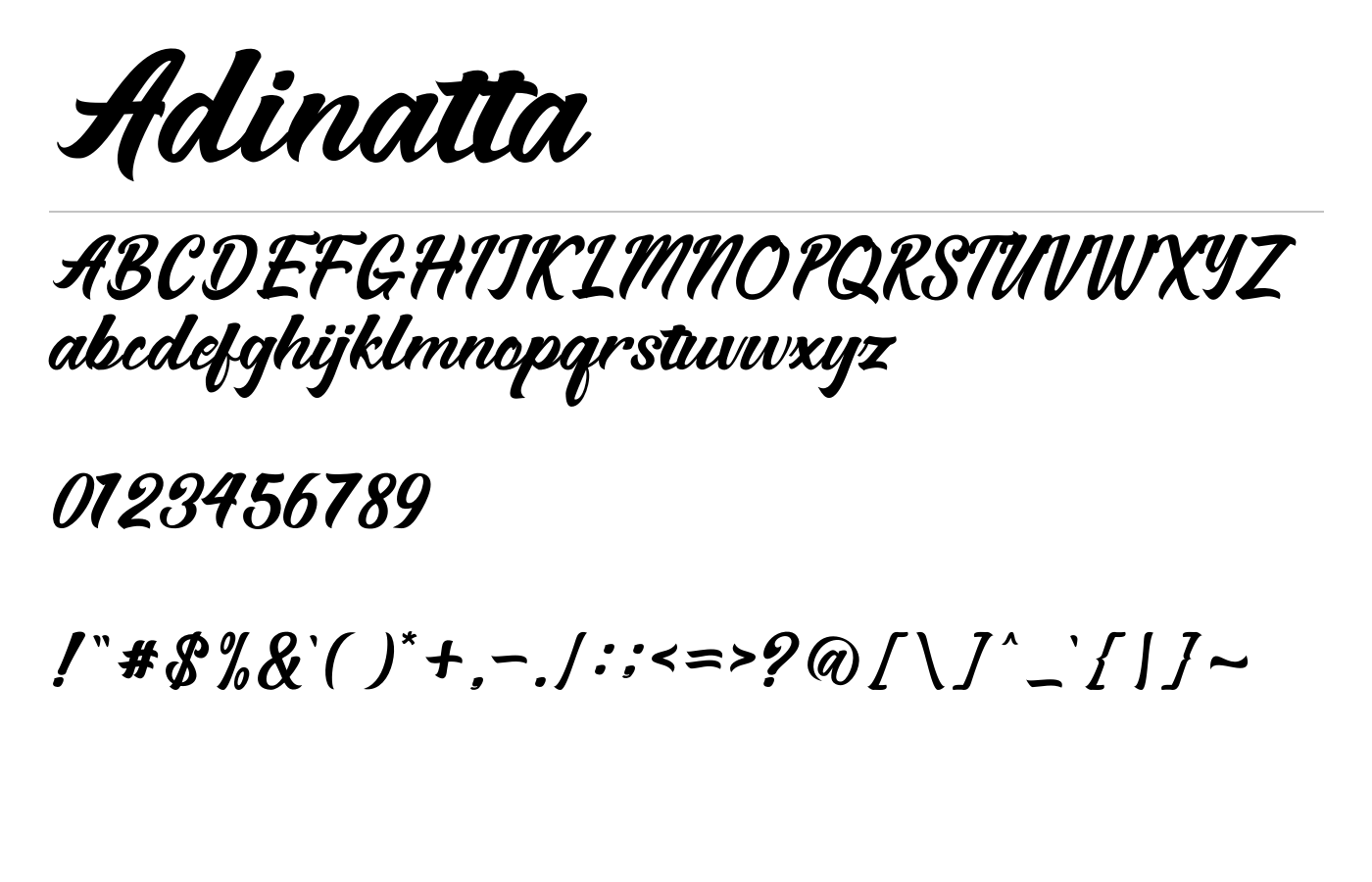
Adinatta is a bold, script-style font with a strong, confident flow and smooth, connected letterforms that capture a handwritten charm. Its moderate contrast, slightly condensed width, and elegant curves make it ideal for logos, headlines, and branding that want to convey a stylish yet approachable personality. This font works especially well for fashion, packaging, and creative projects that need a touch of sophistication with a personal feel.
Adinatta Font
About Adinatta Font